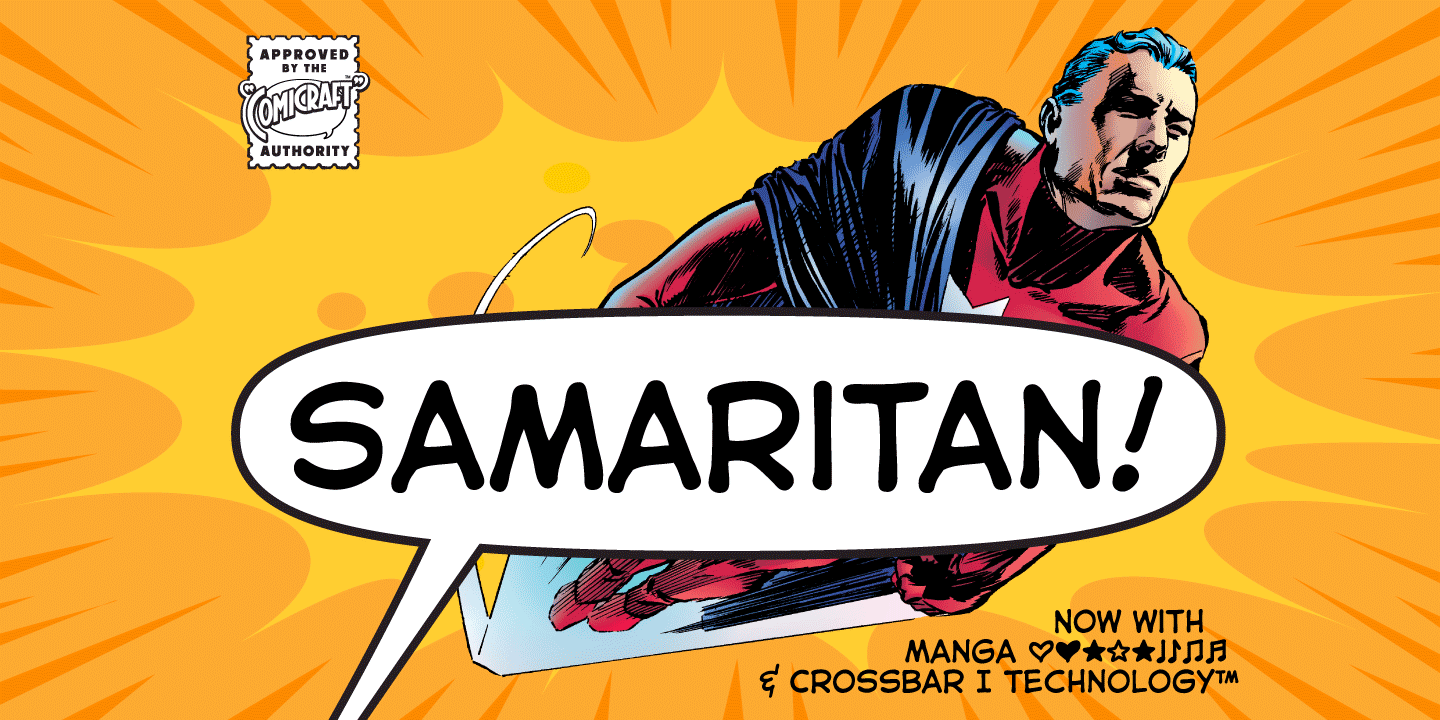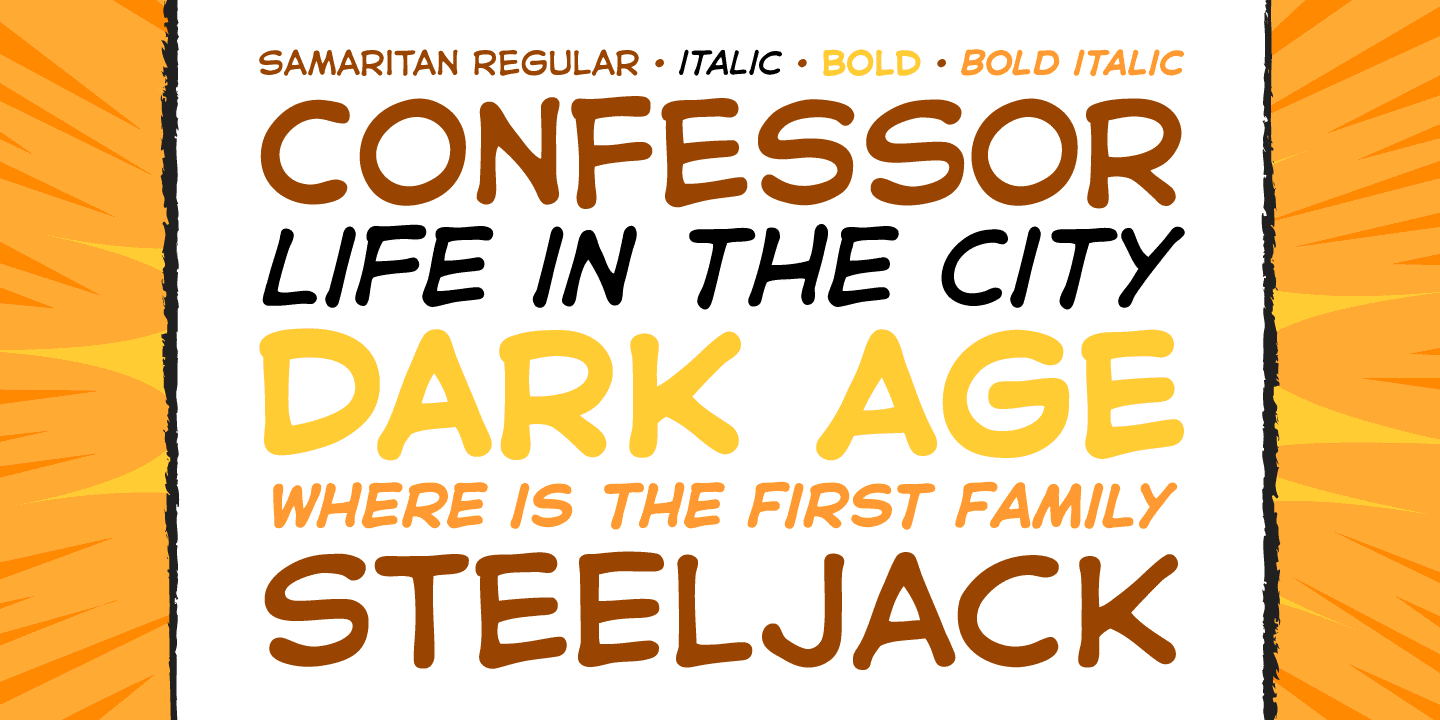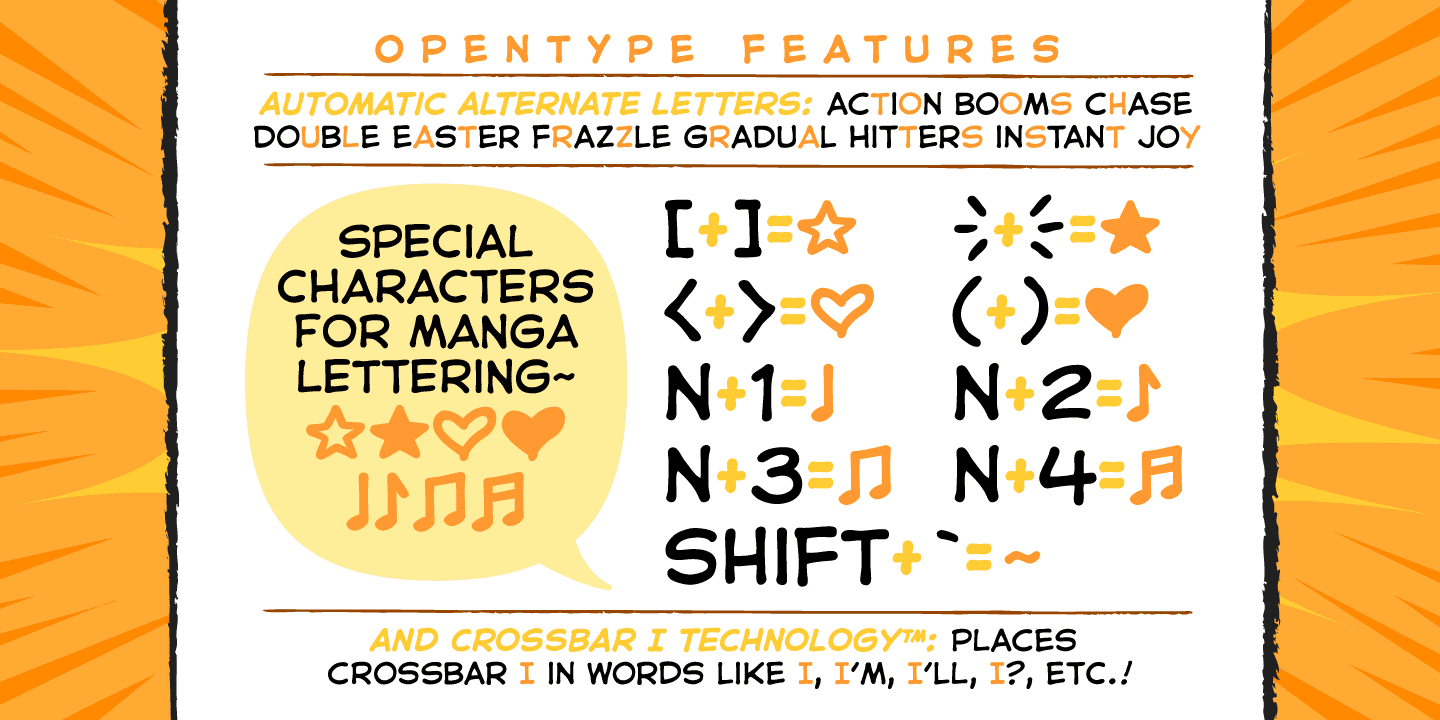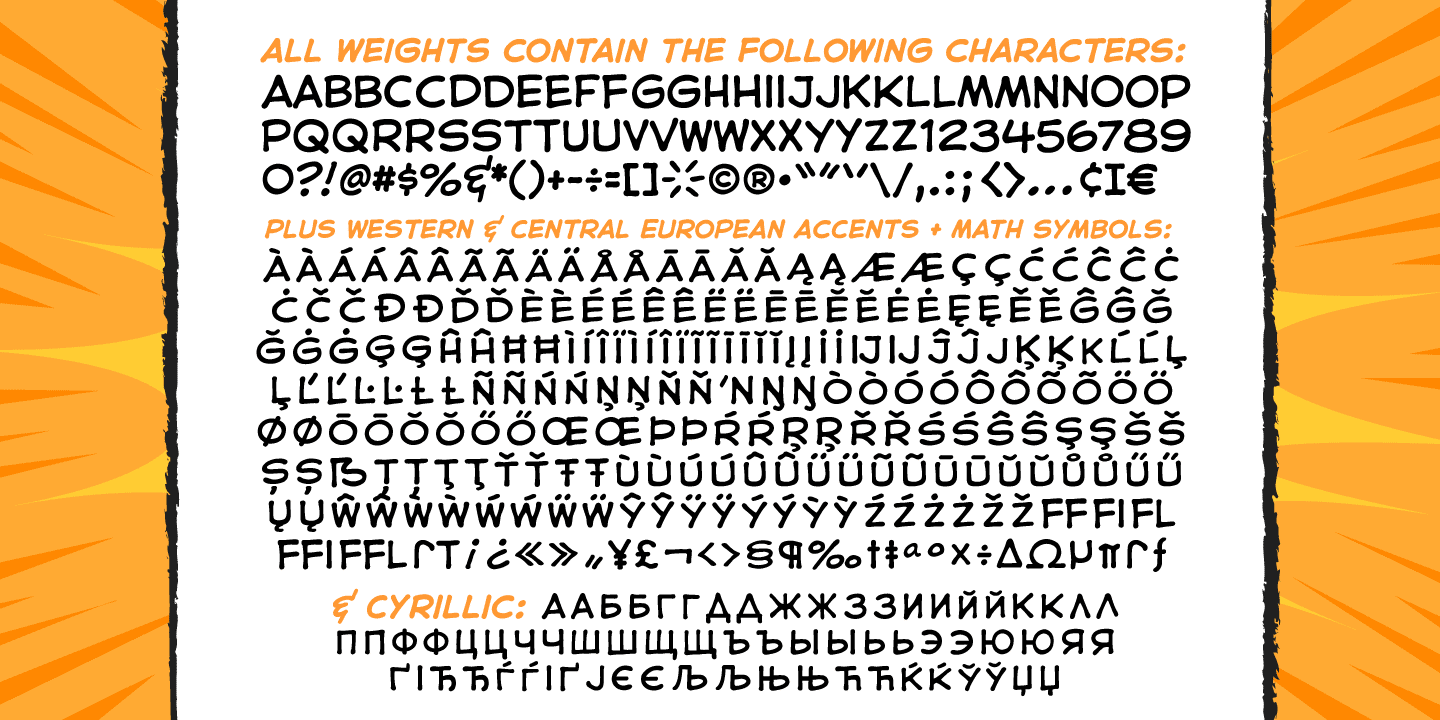
Samaritan
Font Family by Comicraft Fonts
Relocated to Vertigo Comics in 2013, the ASTRO CITY series continues to tell the stories of people like you and me living in a world of super heroes like Winged Victory, Jack in the Box, the Honor Guard and Samaritan. In honor of the relaunch, Comicraft’s JG Roshell has taken the original fifties style Astro City font apart, remastered it, expanded the international character set and given it a whole new secret identity – Samaritan. Everything old is new again.
Pax Purists -- the SAMARITAN fonts come with our First Family of ASTRO CITY fonts, as published alongside the Image ASTRO CITY title in 1995.